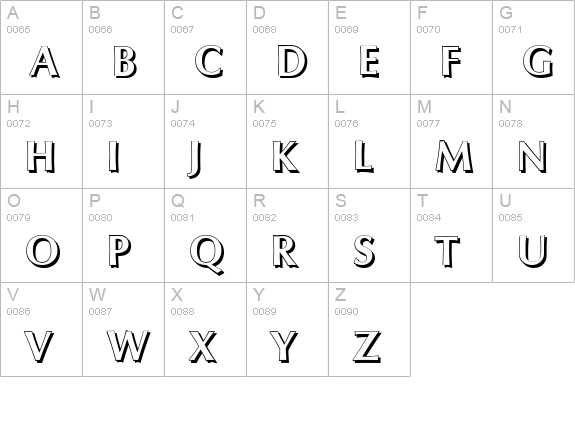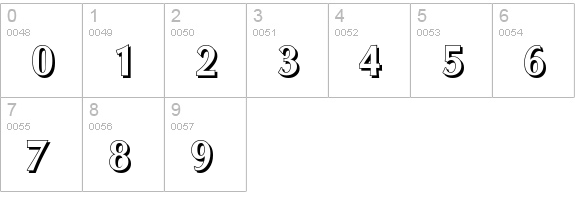
ColumbiaShadow-Bold Font Details
ColumbiaShadow-Bold is a strong, high-contrast variant in the ColumbiaShadow typeface family \xE2\x80\x94 well suited to headlines, attention-grabbing titles, and strong calls-to-action.
ColumbiaShadow-Bold is a striking and versatile font that exudes confidence and strength. Its bold and shadowed design makes it perfect for creating impactful headlines and eye-catching designs. The clean lines and modern aesthetic of this font ensure readability and visual appeal across various design projects. What sets ColumbiaShadow-Bold apart is not only its boldness but also its availability for free download at FontsMarket.com. This means that designers and creatives can easily access this premium font without any cost, making it a valuable addition to their font library. Whether you are working on branding, advertising, or any other design project, ColumbiaShadow-Bold is sure to make a bold statement and leave a lasting impression. Download it for free today and elevate your designs with this exceptional font.